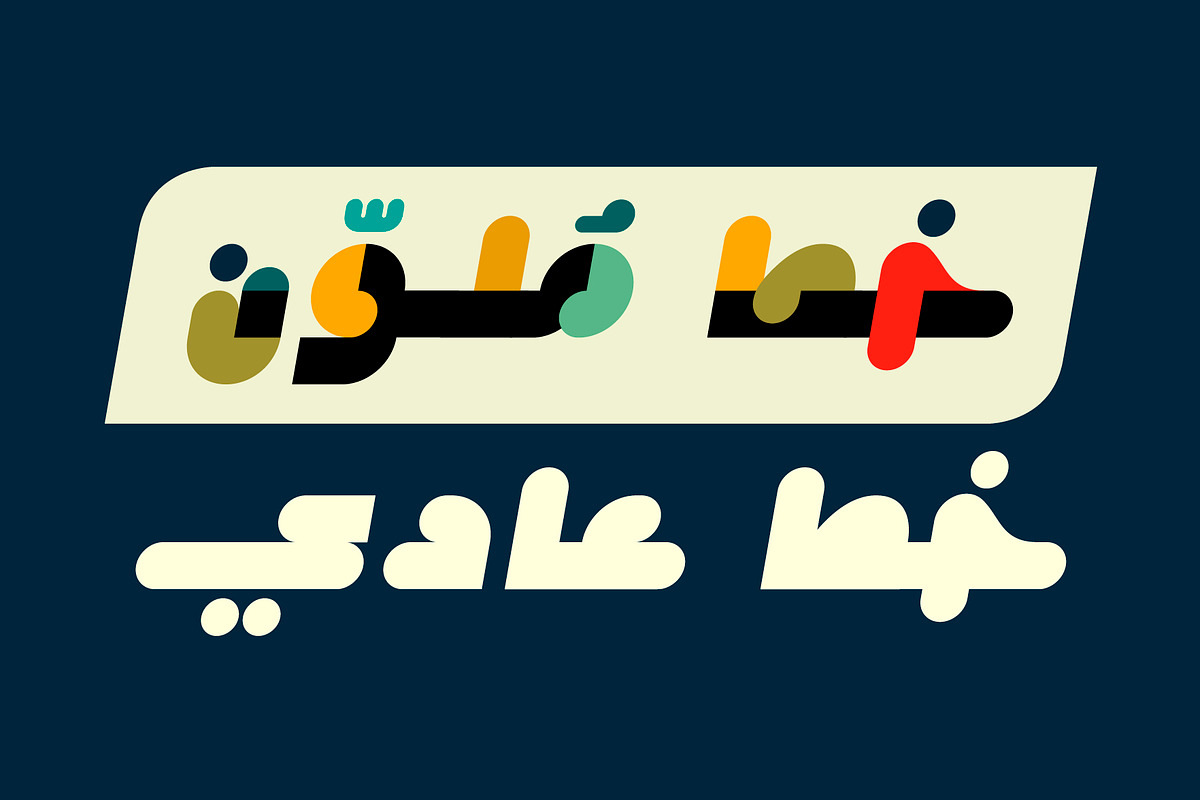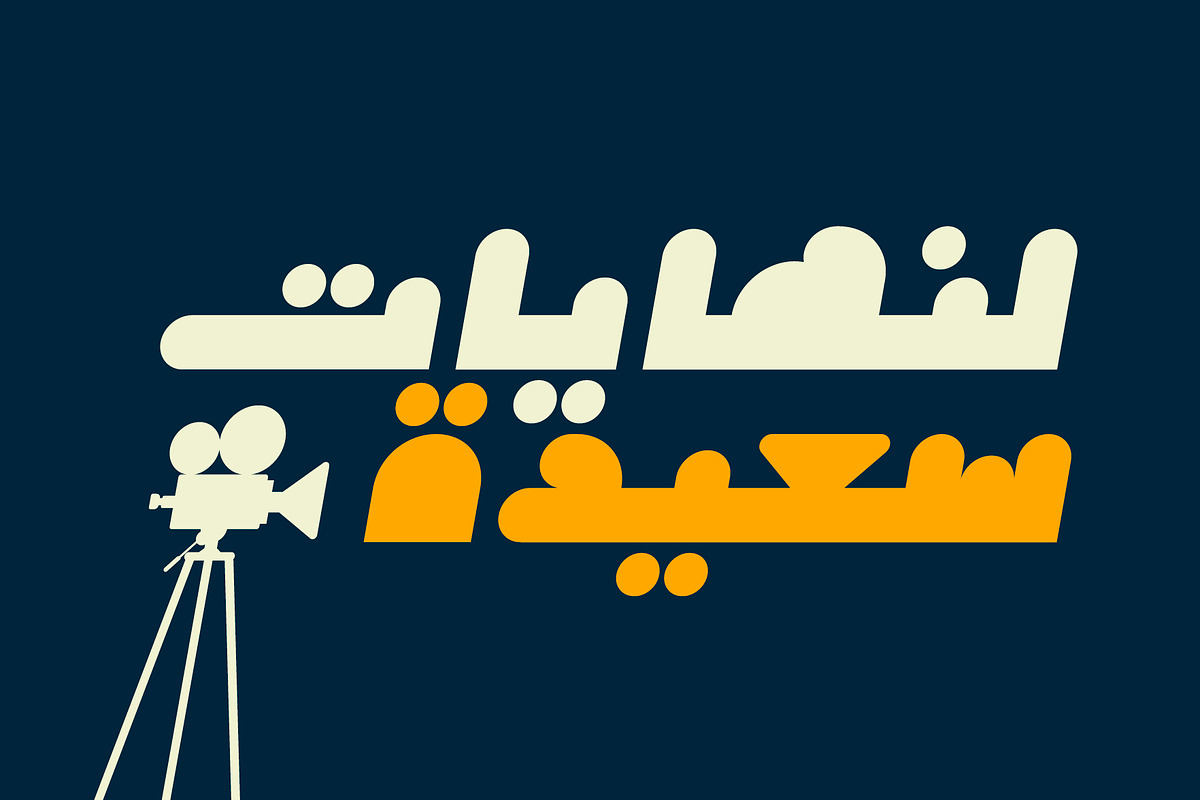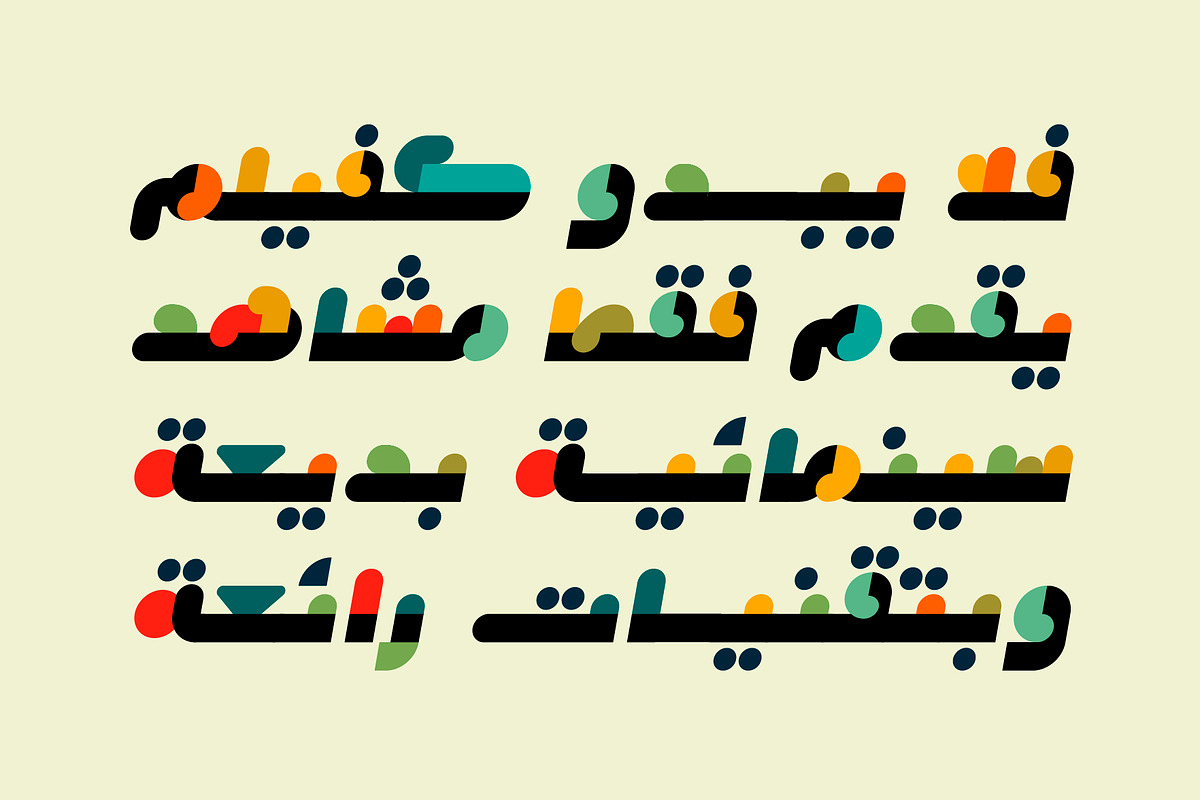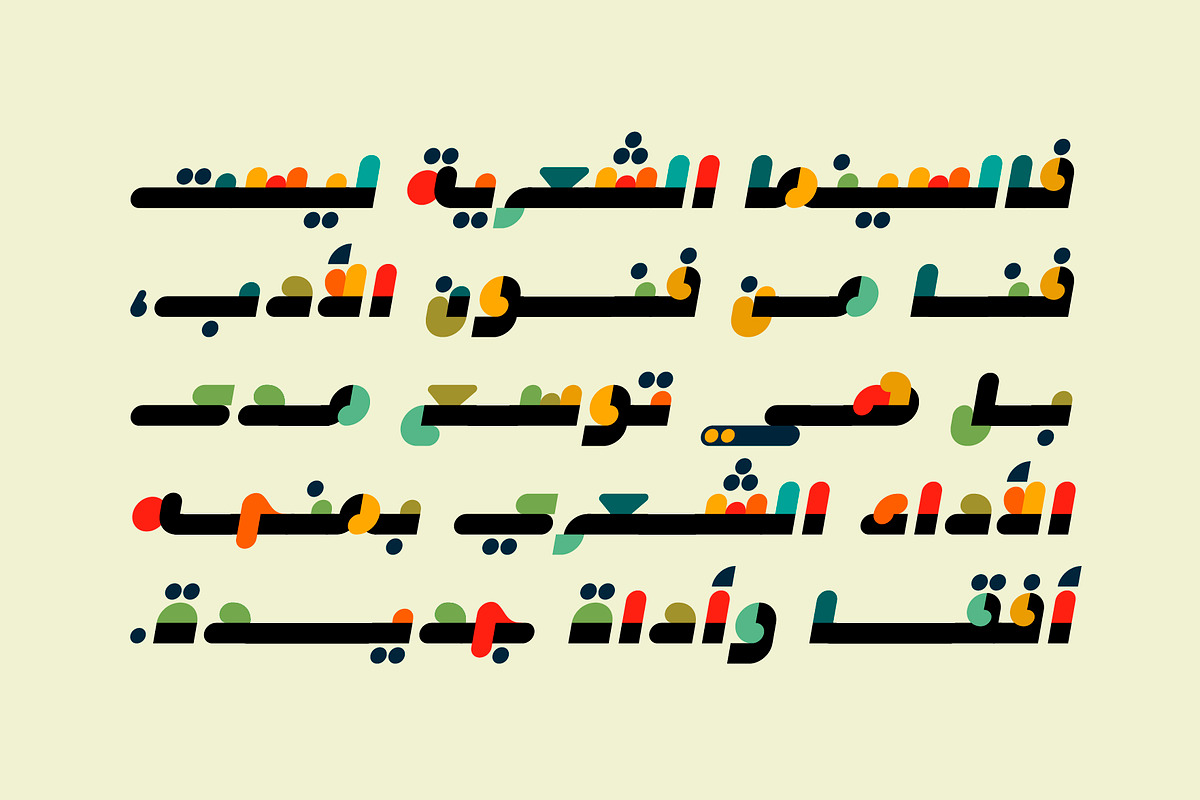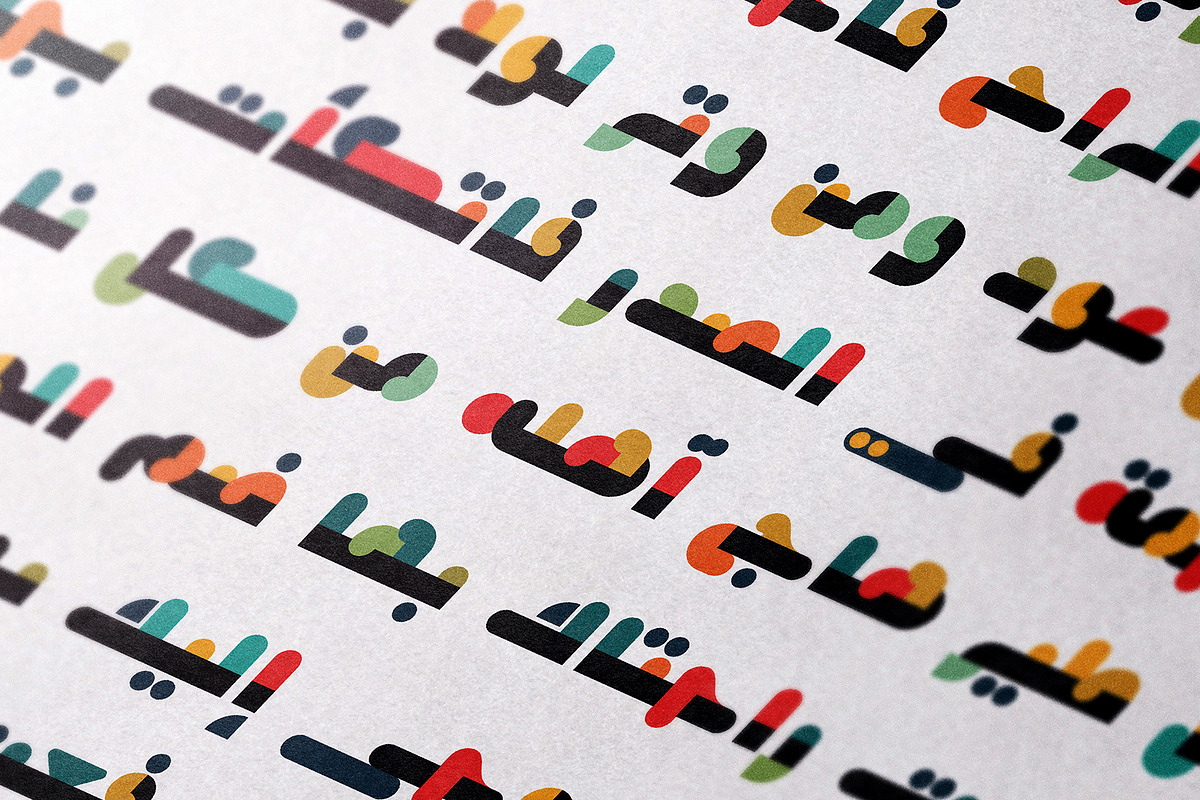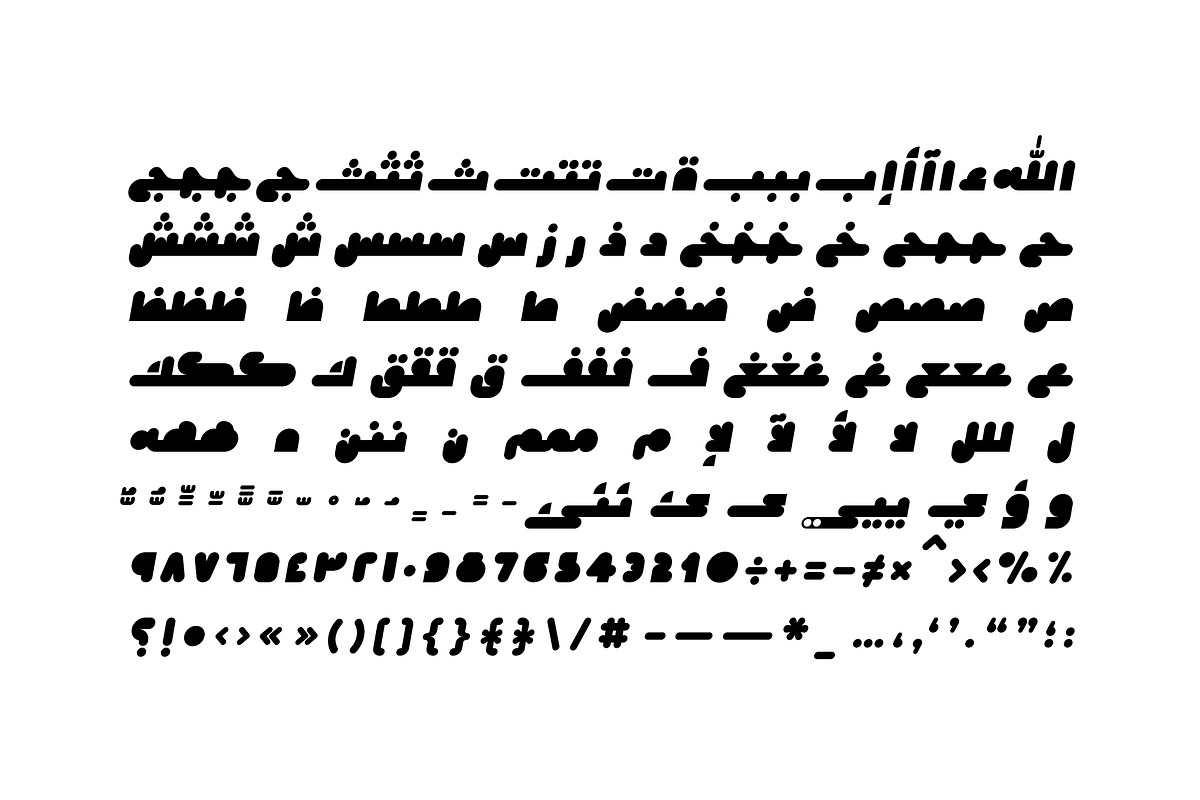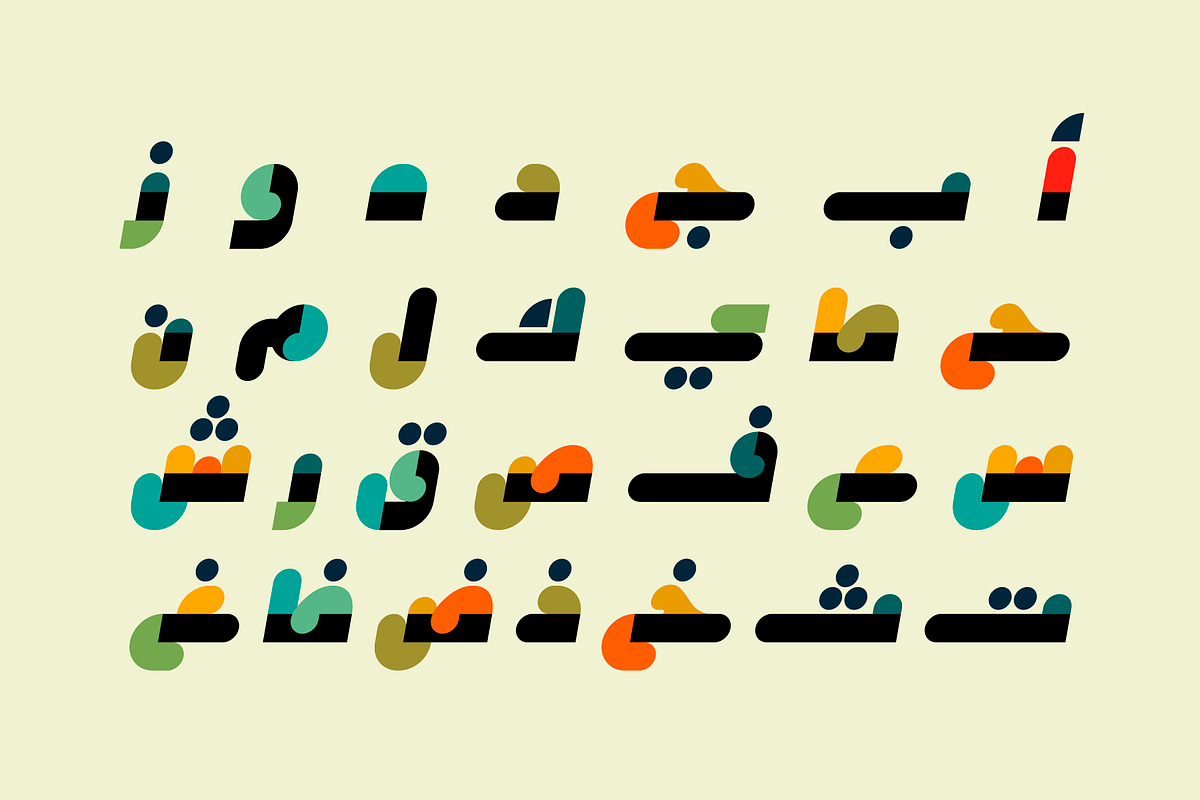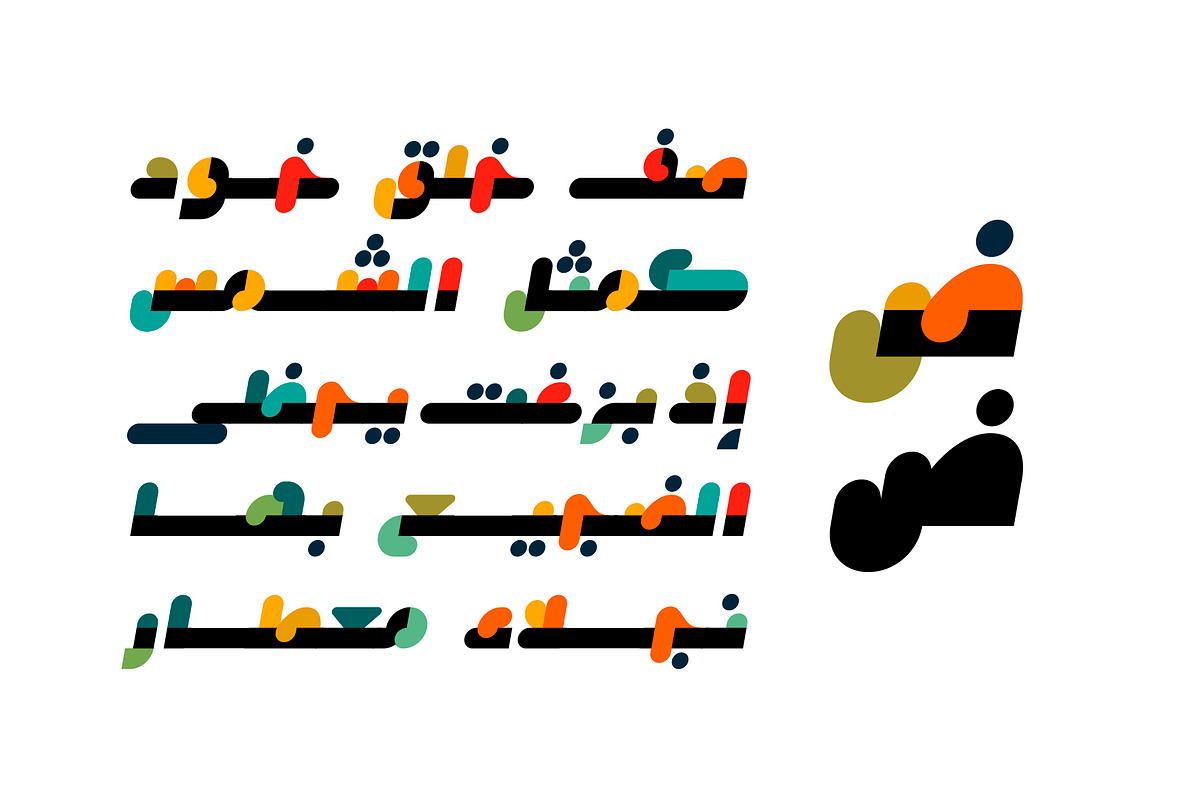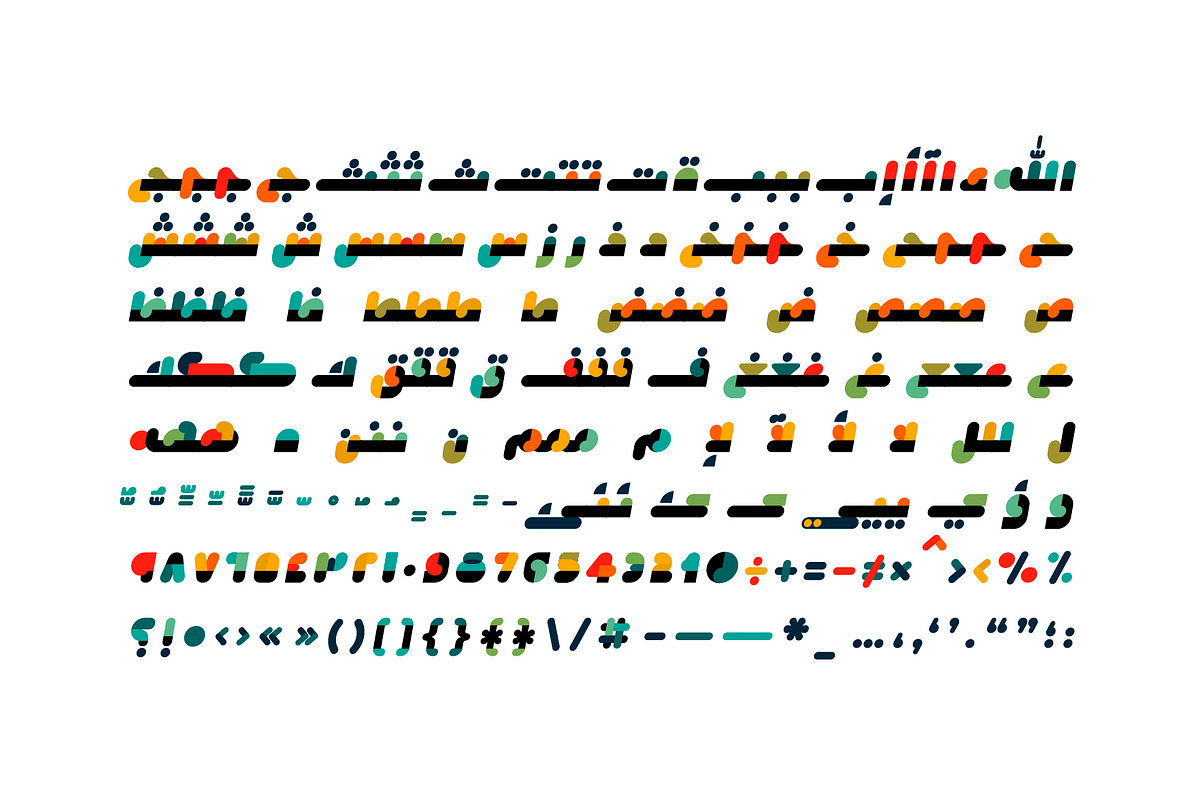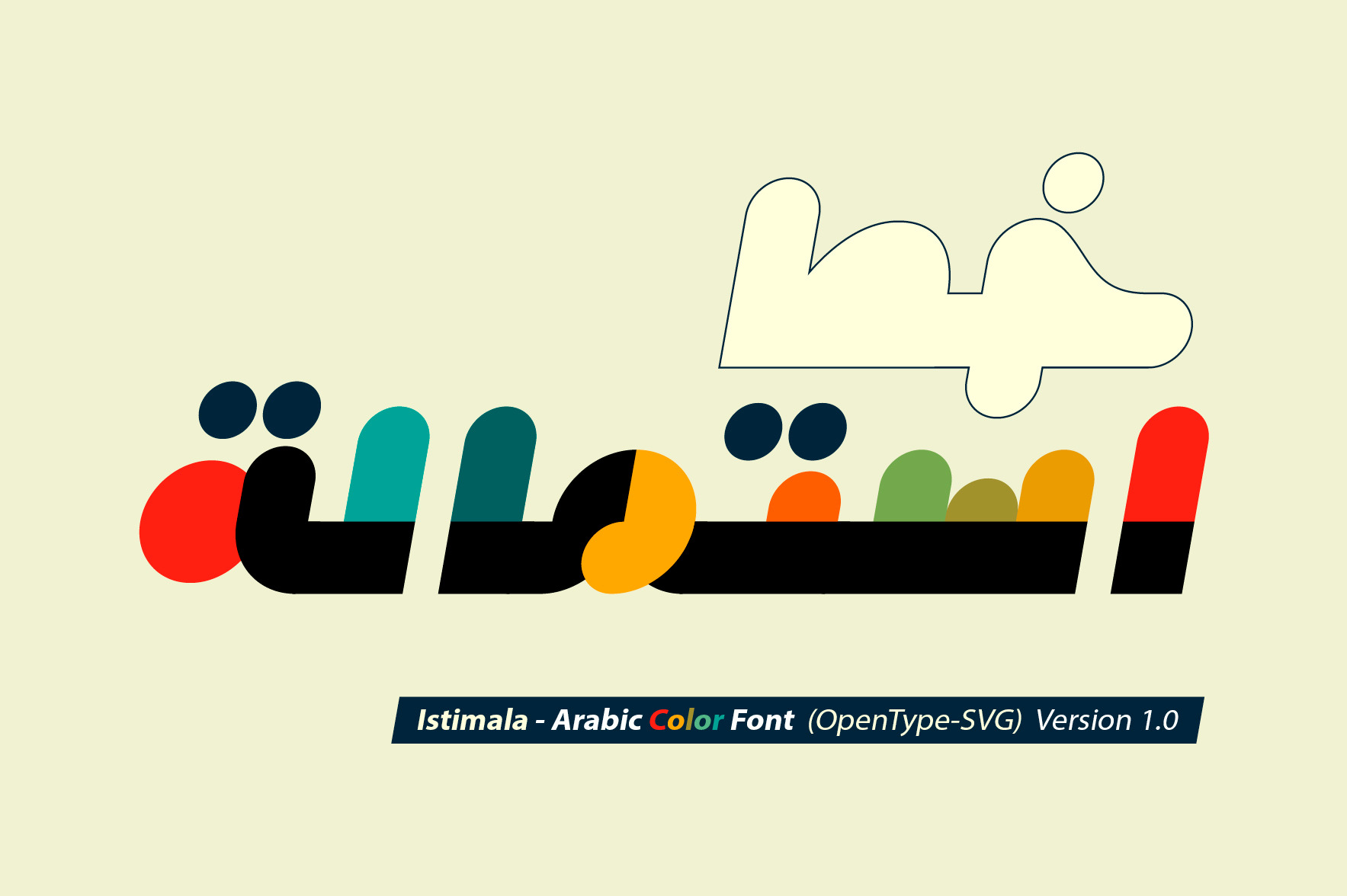
Istimala – Arabic Color Font
Istimala (the Arabic for ‘Incline’) is an Arabic display font that features fresh and dynamic letterform design. Istimala is an OpenType-SVG font that comes in three different color font formats (SVG.TTF, COLR and SBIX) along with a regular black font (OTF). The font is suitable for all contemporary projects including web, print and mobile applications. Istimala supports Windows (10 or above) and macOS (High Sierra or above).